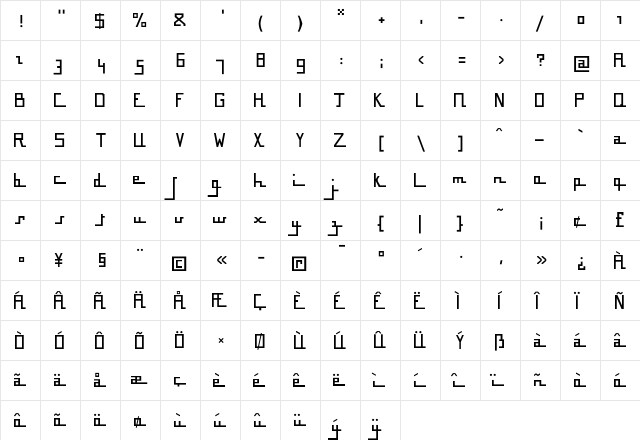
BousniCarre LT Std Medium Regular
| Foundry | Linotype Library GmbH |
| Designer | Bachir Soussi Chiadmi |
Design Context for BousniCarre LT Std Medium Typeface
BousniCarre LT Std Medium takes a measured approach to typography — its balanced proportions and neutral character make it a reliable workhorse for both digital and print work. Its slender proportions lend an understated elegance to any composition.